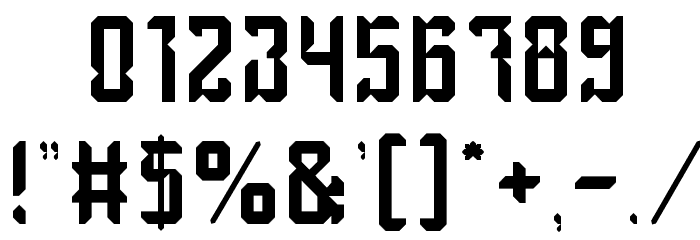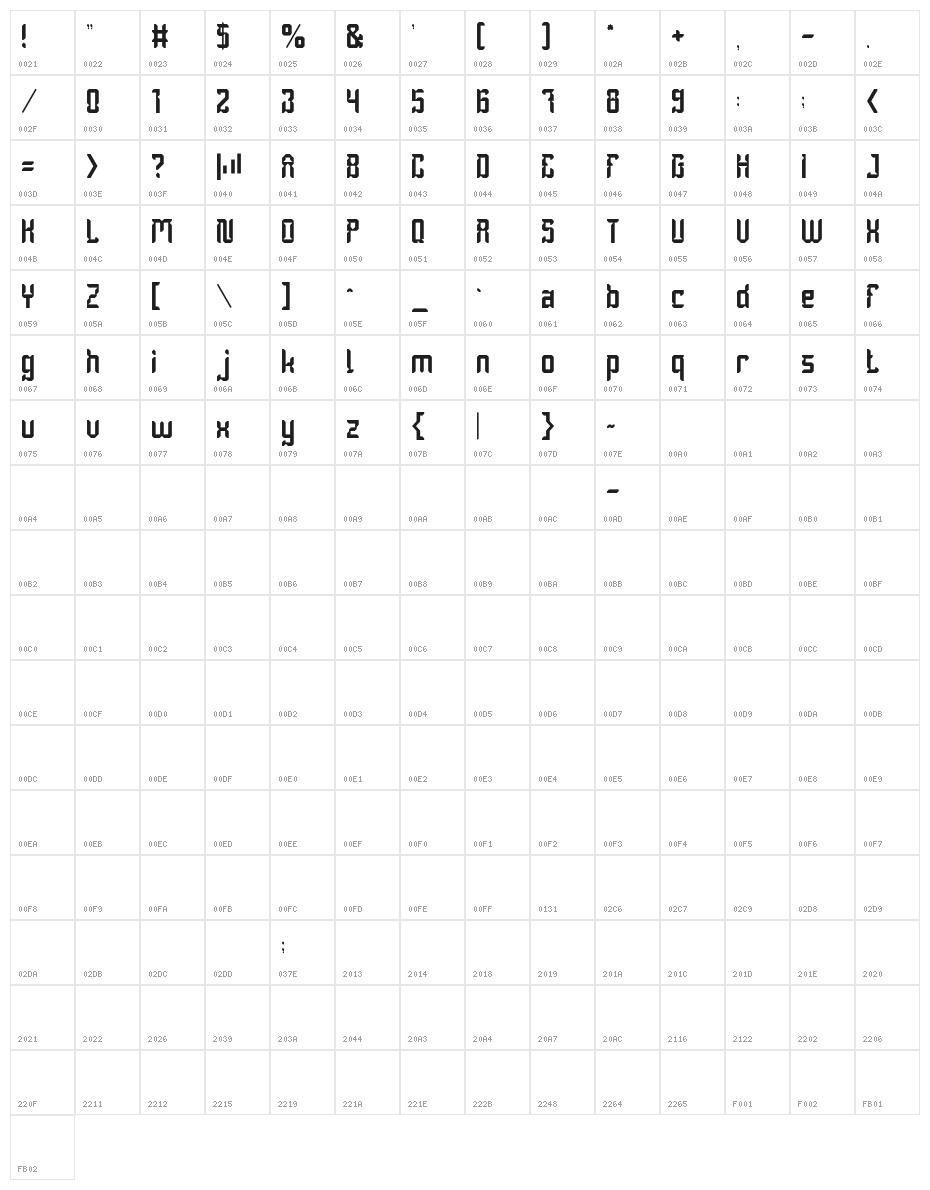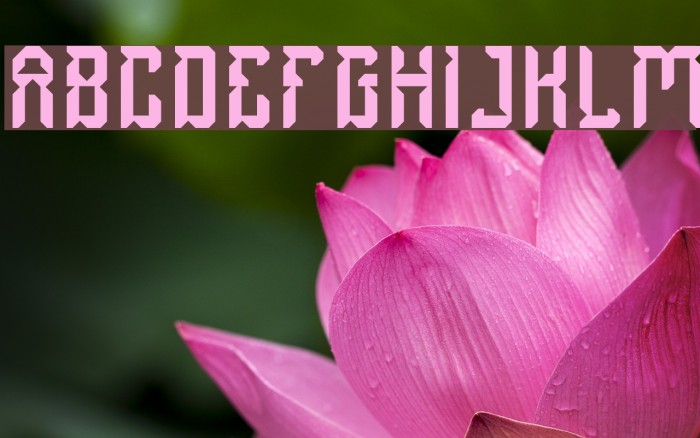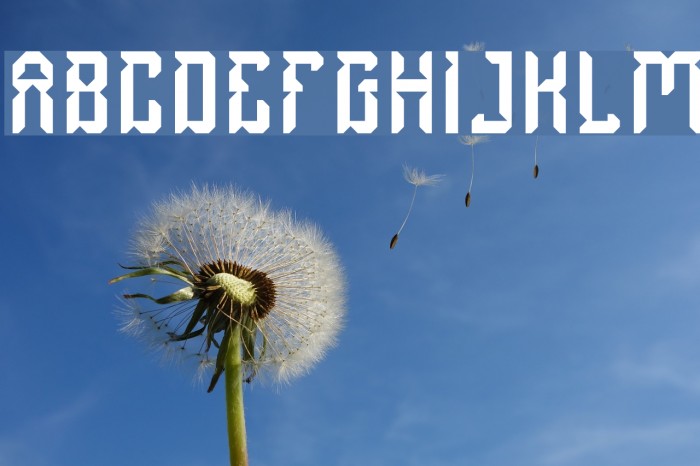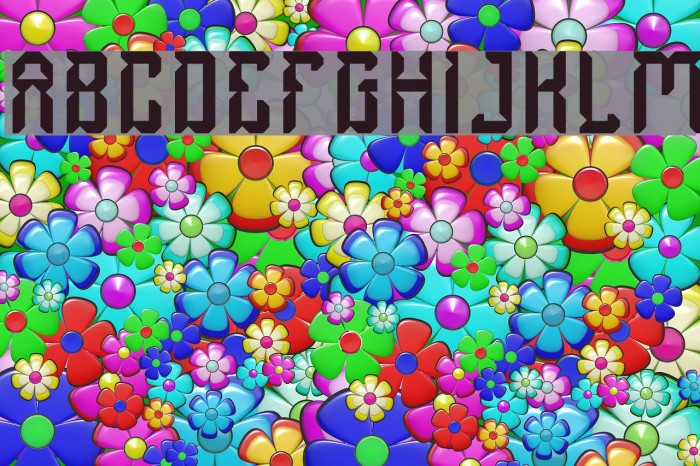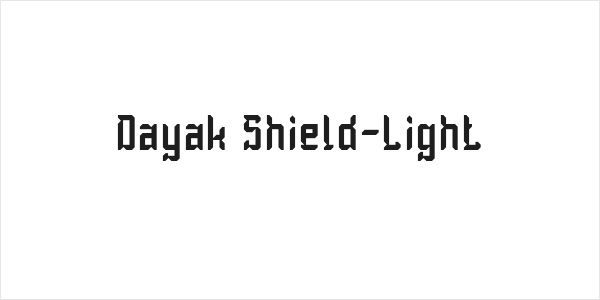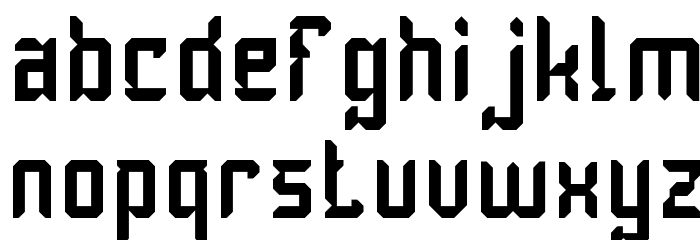
Dayak Shield-Light Font
Dayak Shield-Light Description
This font features a bold and angular design, characterized by its geometric and block-like structure. The letters are crafted with sharp edges and a distinct, tribal-inspired aesthetic, giving it a unique and striking appearance. The uppercase and lowercase letters maintain a consistent style, with a strong emphasis on vertical and horizontal lines. The numbers and special characters follow the same design principles, ensuring a cohesive look across all characters. This font's boldness and distinctive style make it suitable for projects that require a strong visual impact.